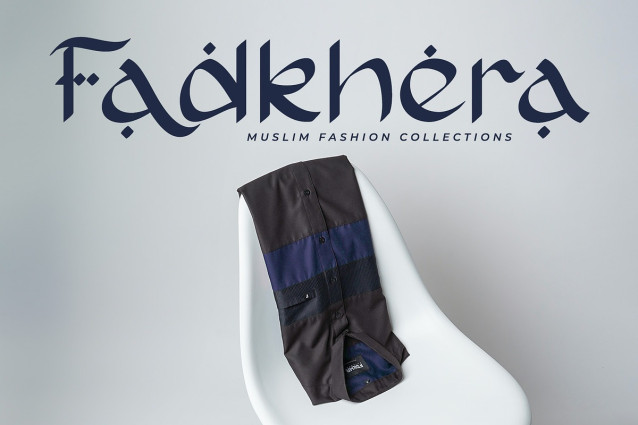
Rofak Font
Rofak Font a unique and captivating display font. Rofak takes inspiration from Arabic script and introduces a distinct rounded design to the characters. This choice softens the edges while preserving the elegance of Arabic calligraphy, resulting in a typeface that exudes a sense of warmth and approachability. Rofak prioritizes readability by maintaining low contrast between strokes and curves. In addition, enjoy the features here.